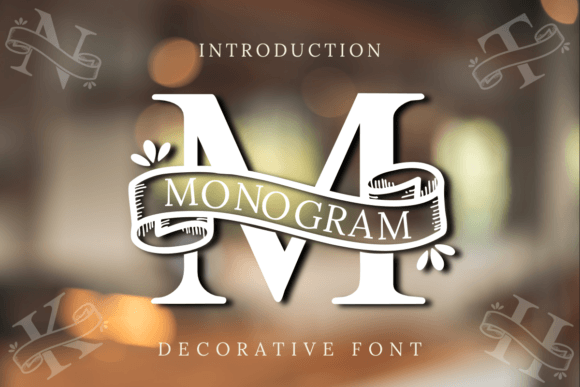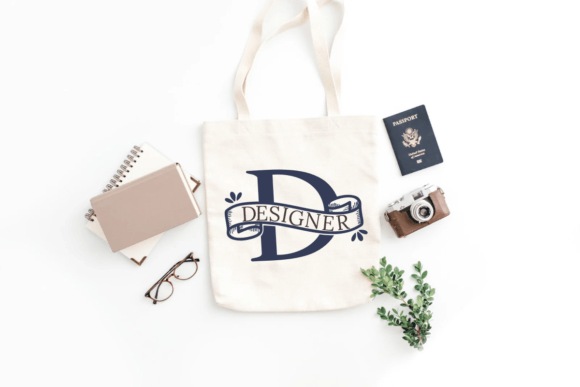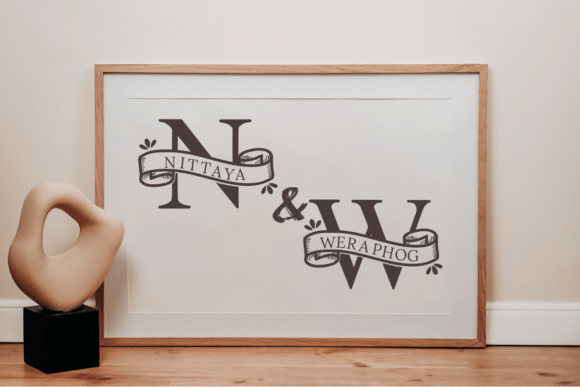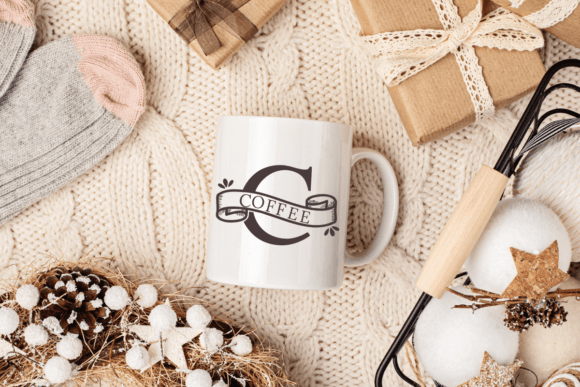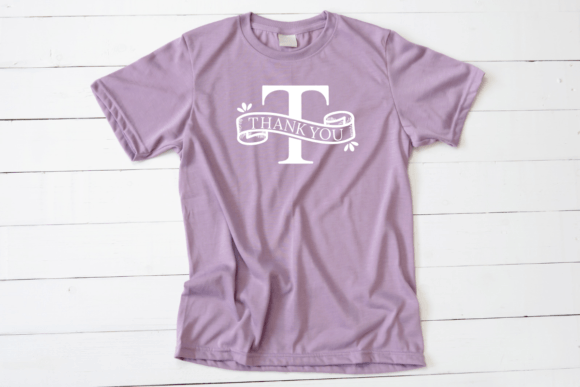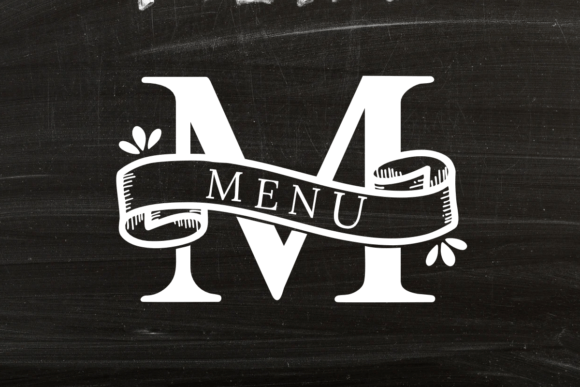
Monogram Font
Monogram is a special kind of font that’s used for big, fancy letters you might see at the start of a book chapter or on a special invitation. What makes it extra cool is that it also has letters designed to stand alone as fancy initials, like you’d see on a royal seal or a fancy logo. So, it’s not just for writing regular words; it’s great for making things look fancy and important!